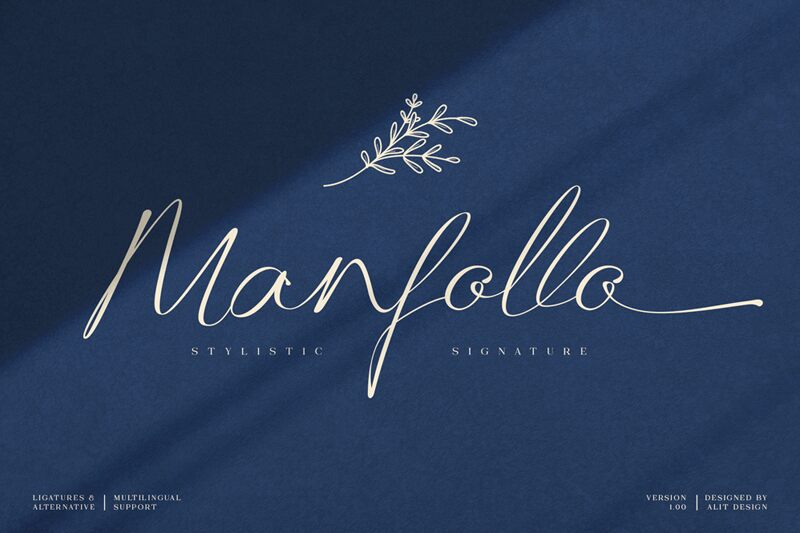
Manfollo Regular
We all adore free stuff, right? So here’s one to enjoy with Manfollo, a cursive hand-lettered font designed by Alit Design and available to download for free.
This lightweight script font can be added to any modern project that wants a unique and casual effect; it also works well for logos, quotes, packaging design, magazine cover designs, invitations, website headers, and other creative projects.